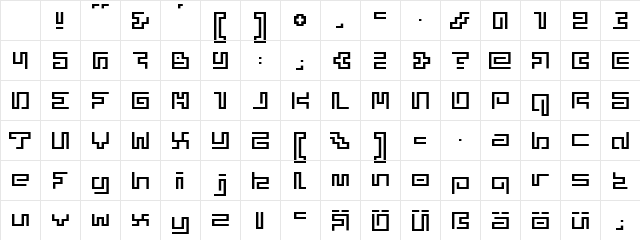
Superphunky is a composed and adaptable typeface that performs quietly and consistently across a wide range of design contexts.
Pro Tip: Use Superphunky in both headline and body roles to test its range before committing to a single application.